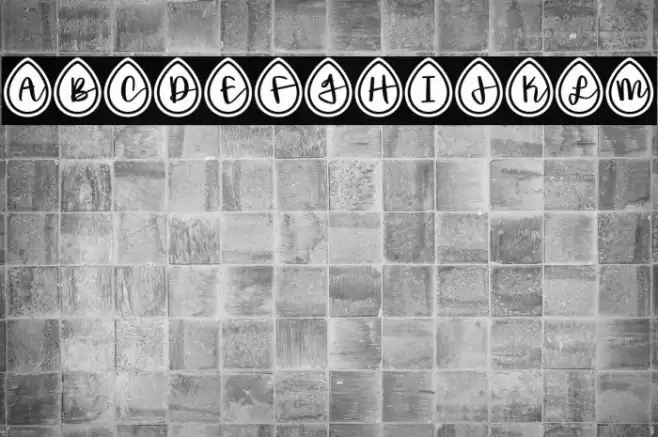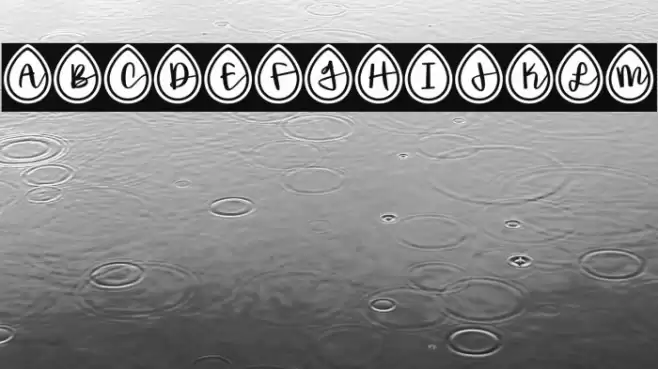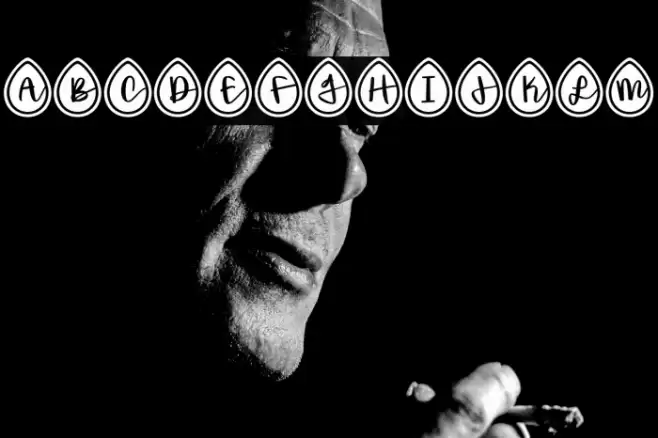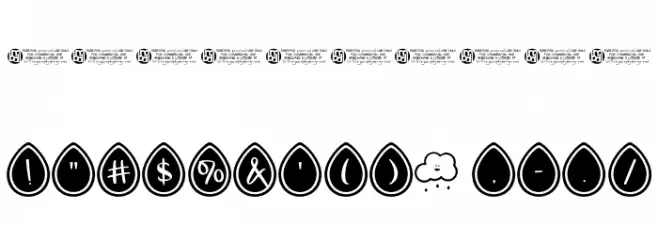
Spring*Drops Font
Spring*Drops Description
This playful and decorative font features letters encased in teardrop shapes, creating a whimsical and unique appearance. The characters are crafted in a script style, with smooth, flowing lines that suggest a handwritten quality. Each letter is centered within its teardrop, providing a consistent and balanced look across the alphabet. The font includes both uppercase and lowercase letters, as well as numbers and a selection of special characters. The overall style is light-hearted and fun, making it ideal for projects that require a touch of creativity and charm.
A playful script font with letters in teardrop shapes, offering a whimsical and decorative style from Decorative fonts.
- Font: Spring*Drops
- Proposed Projects: Ideal for greeting cards, children's book covers, playful branding, and creative invitations.
- Use Case: Logos, Headlines, Invitations